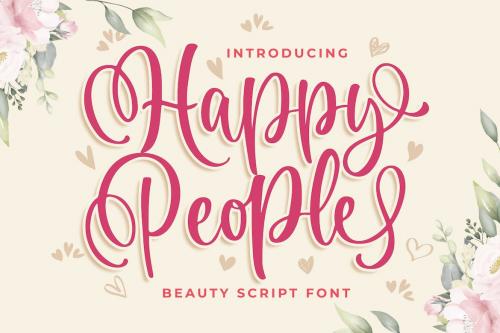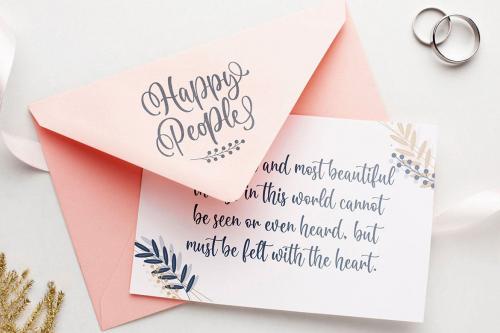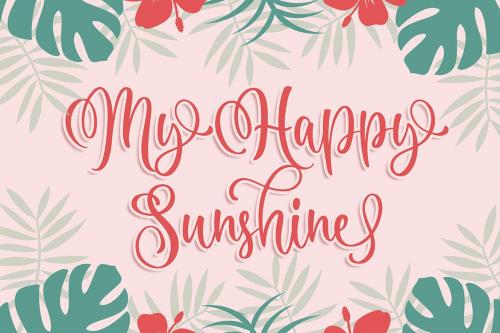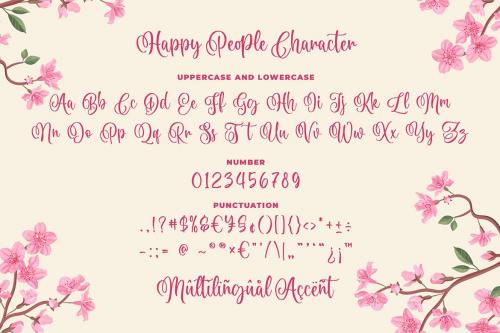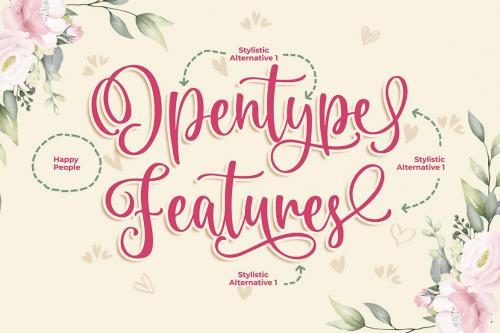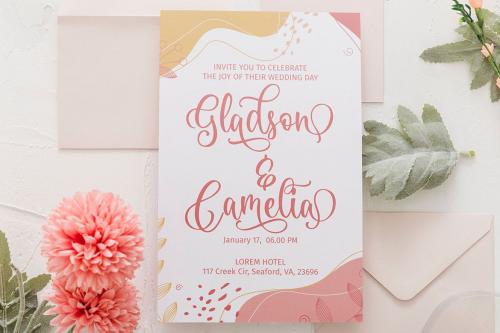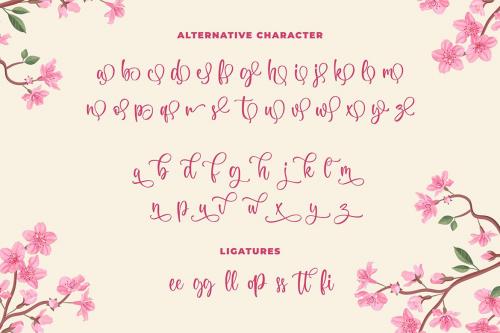
快乐的人 beauty script 字体
Happy People Beauty Script Font
Introducing of our new product the name is Happy People Beauty Script Font. Happy People inspired by modern calligraphy style this font is a fun theme very good for display, tshirt design, craft, quote sign, logotype and etc
* Uppercase
* Lowercase
* Number
* Punctuation
* Multilingual
* Opentype